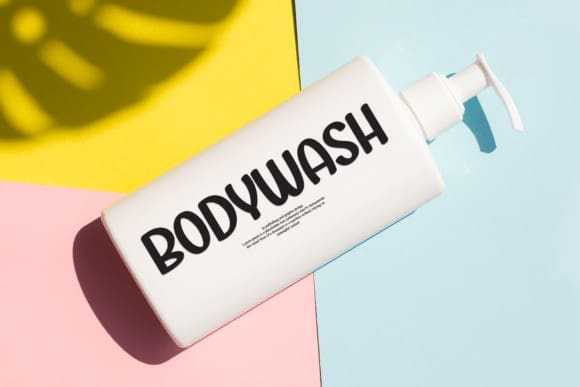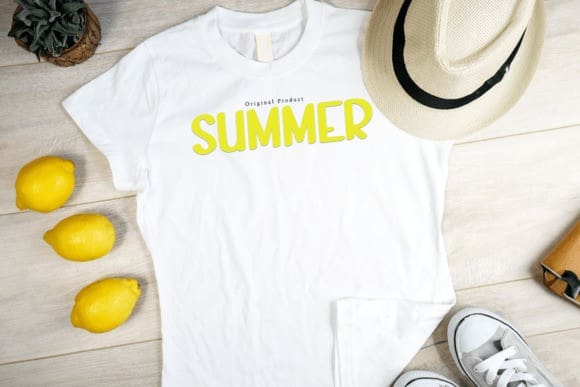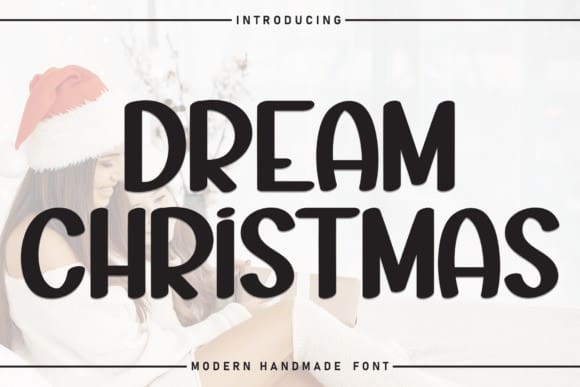
Dream Christmas Font
Dream Christmas Font, meet the warm-hearted charm of our adorable handwritten font, perfect for elevating the elegance of wedding invitations and greeting cards. With its sweet essence and friendly demeanor, it effortlessly adds a playful touch to your design solutions. Dive into an ocean of creativity with our amiable display font that radiates convivial fun while maintaining a sophisticated appeal.